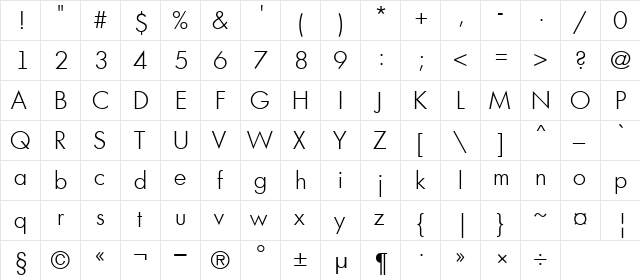
a_FuturicaBs Light
Design Context for a_FuturicaBs Typeface
a_FuturicaBs channels digital-age aesthetics through its sharp, structured letterforms — ideal for brands that want to signal innovation. The delicate stroke weight brings airiness and refinement to layouts.
Pro Tip: Use a_FuturicaBs in combination with a neutral sans for body text. Let it define the brand voice in headlines while keeping reading comfortable elsewhere.